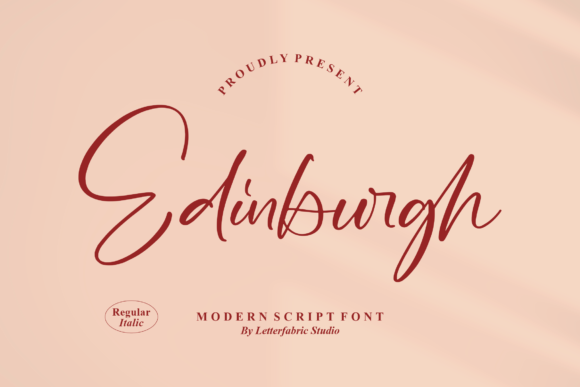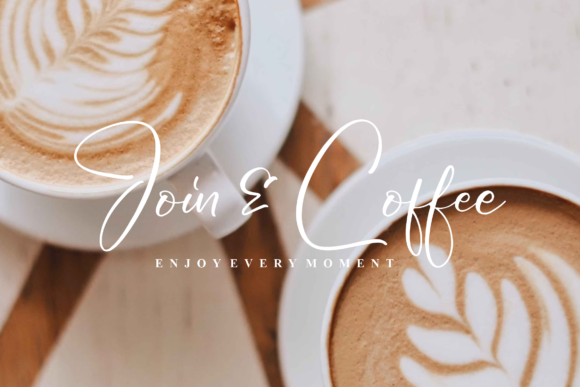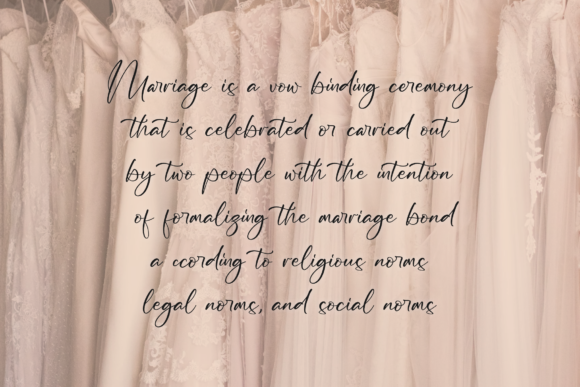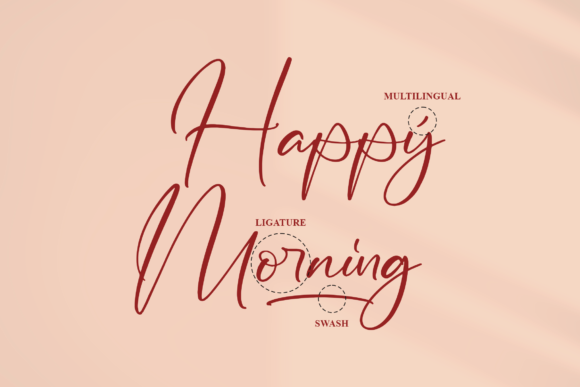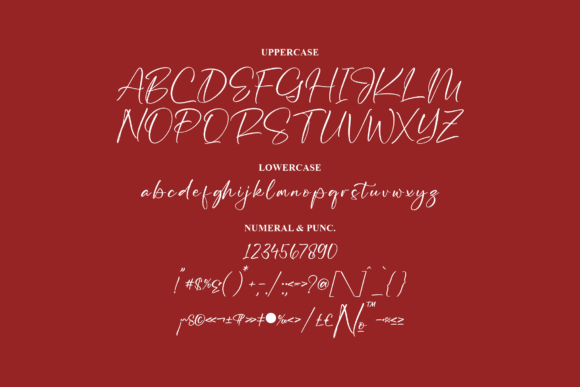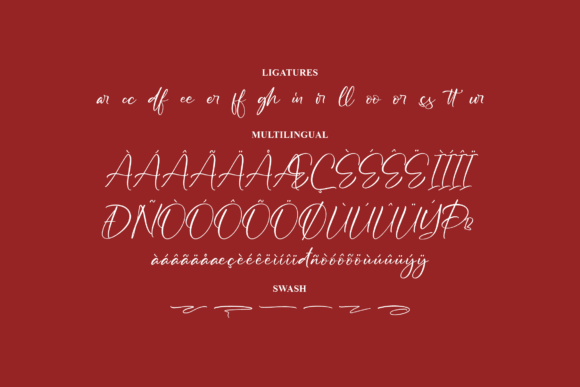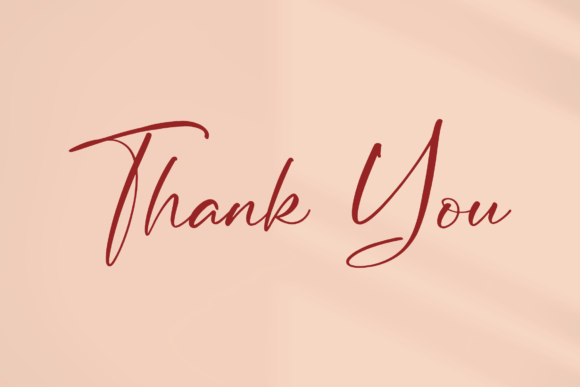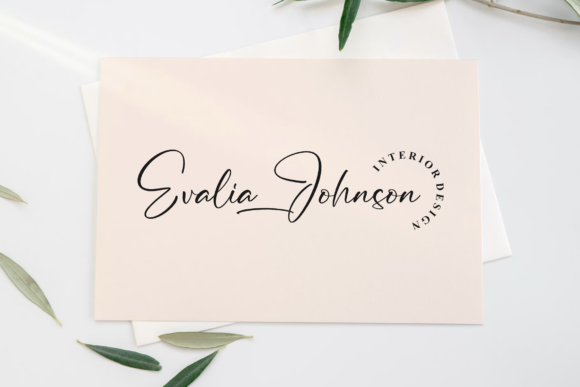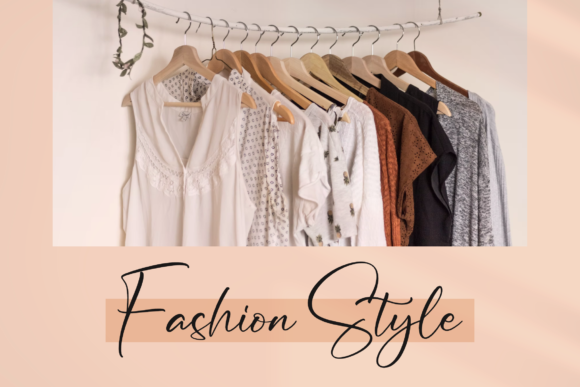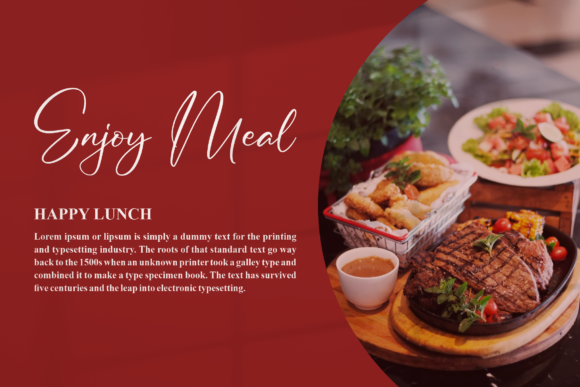
Edinburgh Font
Edinburgh is a captivating script font meticulously crafted to infuse your designs with a sense of elegance and sophistication. Whether you’re packaging products, designing invitation cards, crafting flyers, creating mockups, or promoting events through posters, Edinburgh delivers high-quality vibes that elevate your projects to the next level.
With its free-flowing strokes and graceful curves, Edinburgh exudes a timeless charm that effortlessly complements a wide range of design styles and aesthetics. Each character is beautifully balanced, ensuring seamless integration with diverse design concepts and applications.
This font’s versatility makes it an ideal choice for various design projects. Whether you’re working on minimalist packaging or vibrant event promotions, Edinburgh adapts flawlessly to your needs, adding a touch of refinement and personality to every creation.
One of Edinburgh’s standout features is its PUA encoding, granting easy access to all glyphs and swashes. This means you can effortlessly customize your designs, incorporating intricate details and decorative elements to enhance visual appeal and create a unique, eye-catching look.
In summary, Edinburgh is more than just a font—it’s a versatile tool that empowers designers to unleash their creativity and bring their vision to life with style and sophistication. Whether you’re a seasoned professional or an aspiring enthusiast, this font invites you to explore new possibilities and create captivating designs that leave a lasting impression.